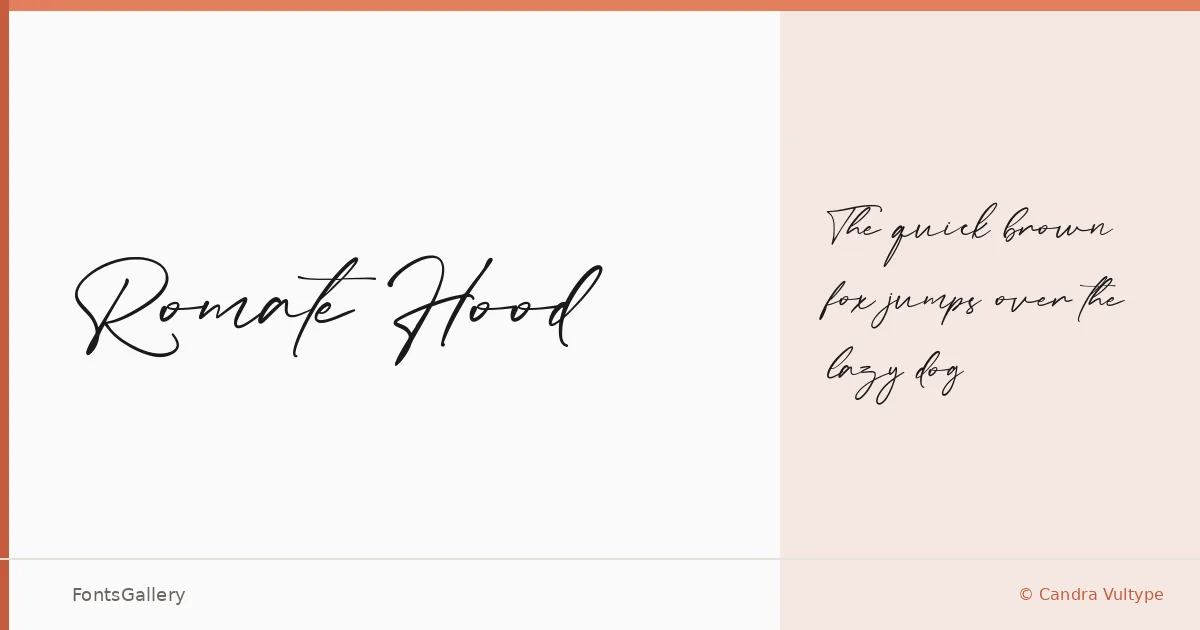
About Romate Hood Font
There is a certain unhurried grace to this script — the kind where each letterform seems to breathe before connecting to the next. Released by Candra Vultype Co., it carries a classic, romantic sensibility that sits comfortably in the tradition of calligraphic display lettering. The single Regular weight is delivered as an OTF file, clean and ready to place.
The mood throughout is elegant and luxurious, the sort of script that earns its place on a formal invitation or a high-end brand identity. Every curve leans into romance without tipping into excess. Because the family ships as a single cut, the letterforms carry all the expressive weight themselves — and they do so with enough restraint to read as refined rather than decorative. Latin coverage is partial, so worth checking against your specific character requirements before committing.
It reads best where occasion and elegance meet: wedding stationery, invitation cards, greeting cards, logo lockups, and branding projects where a handcrafted signature quality is wanted. For pairing, the contrast-rich serif of Canela or the editorial presence of ABC Arizona work well against it, as does the crisp neutrality of Helvetica; Anglecia Pro and (AH) Manal are also listed companions that can hold their own alongside its calligraphic flow.